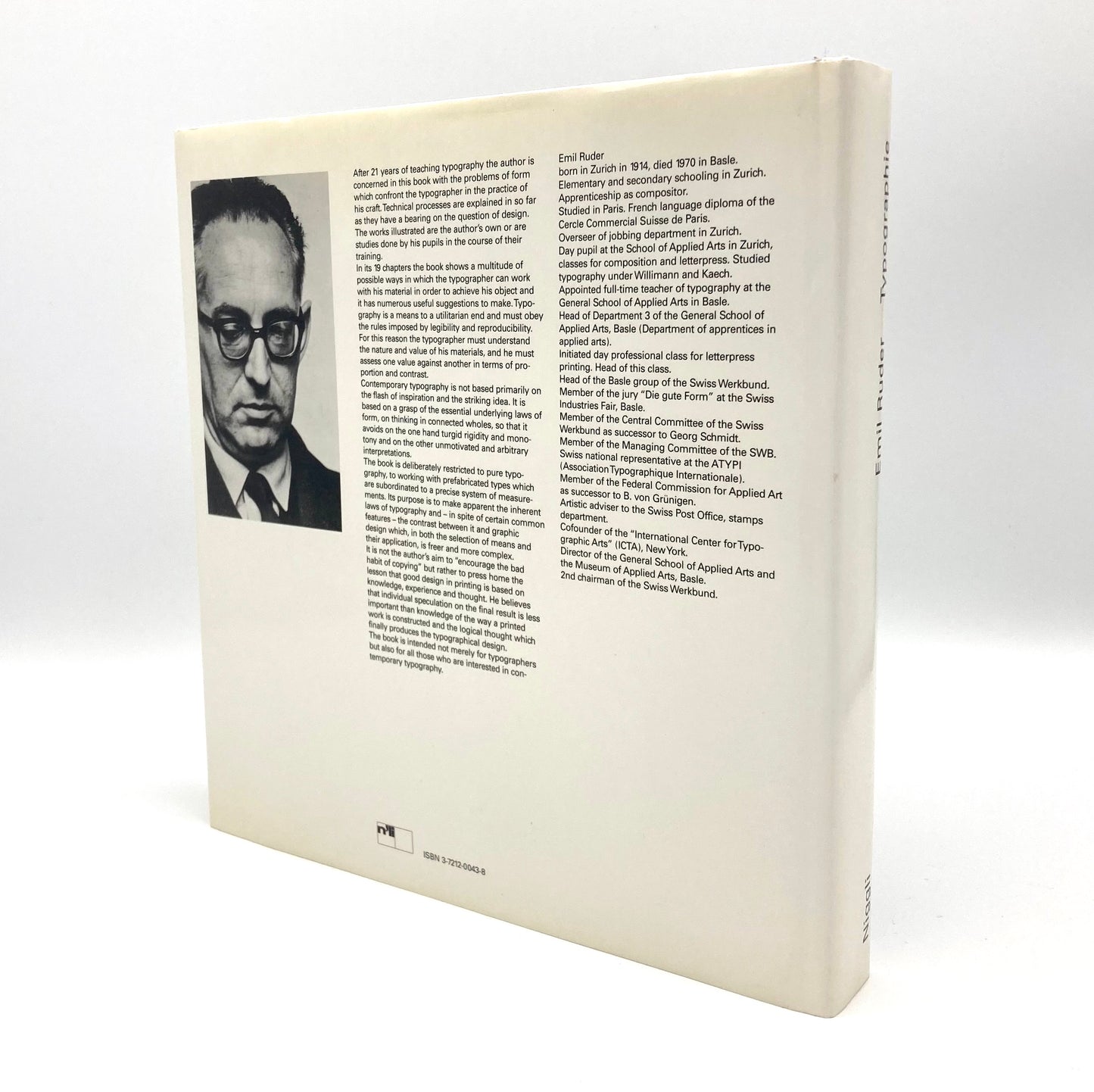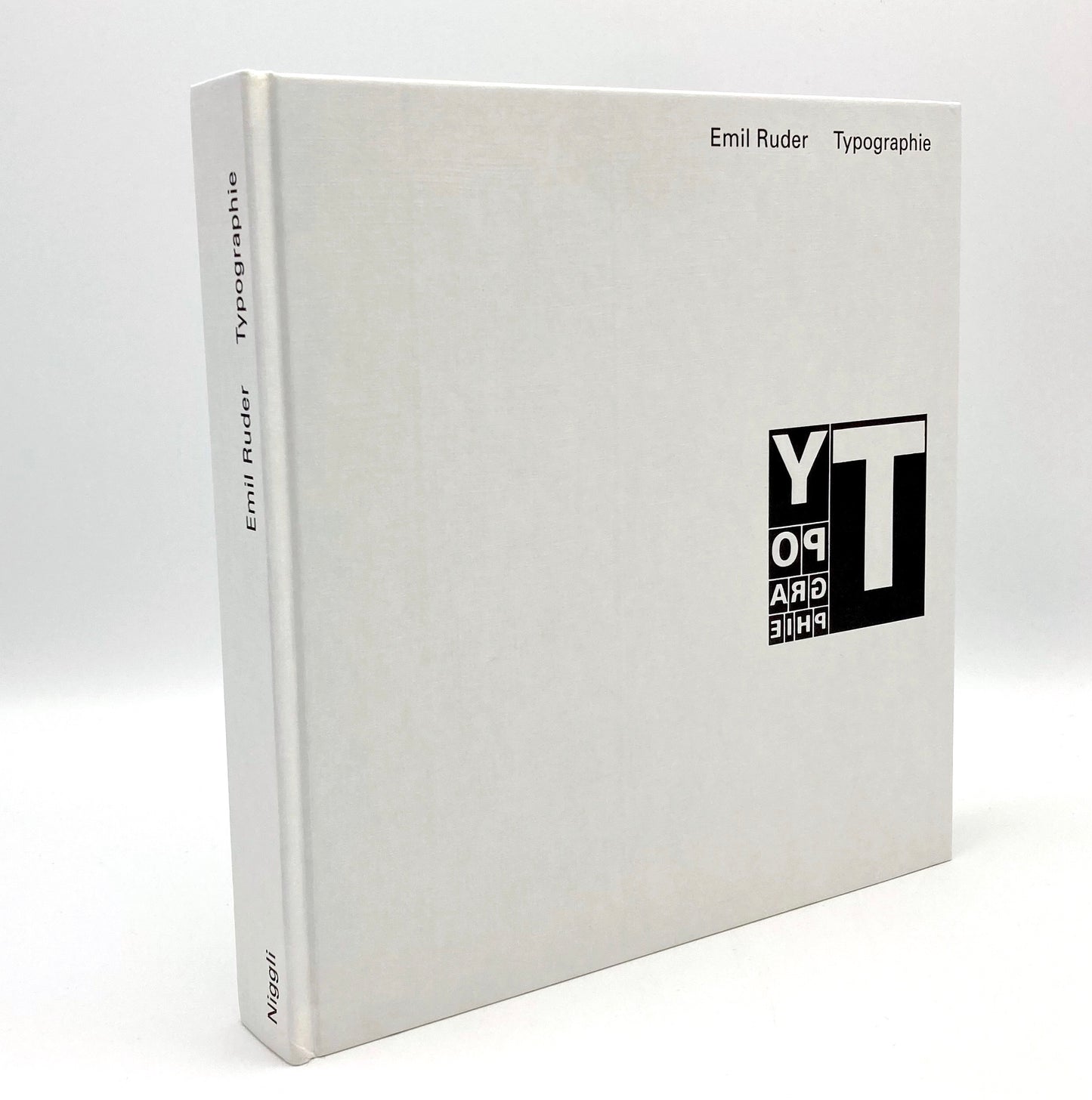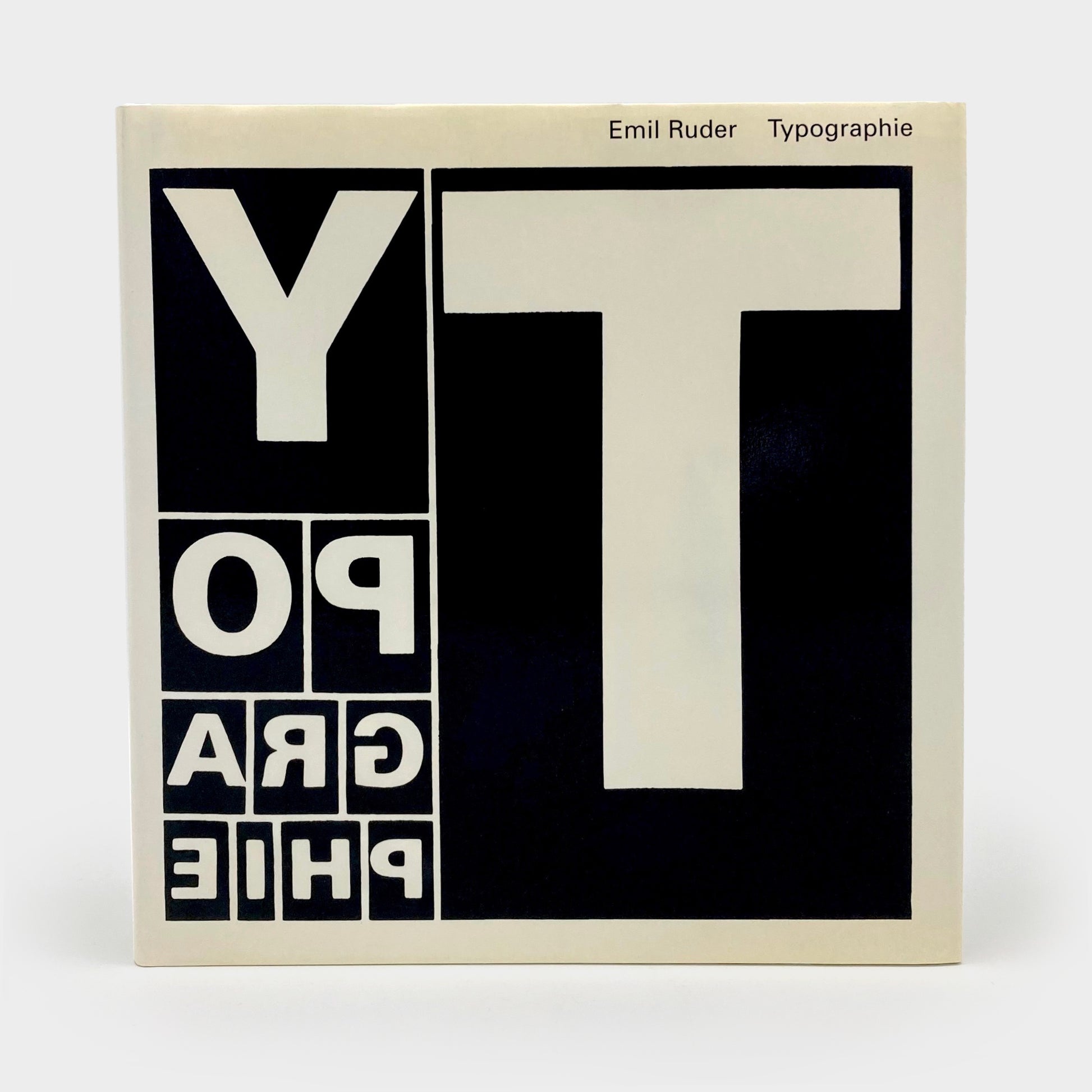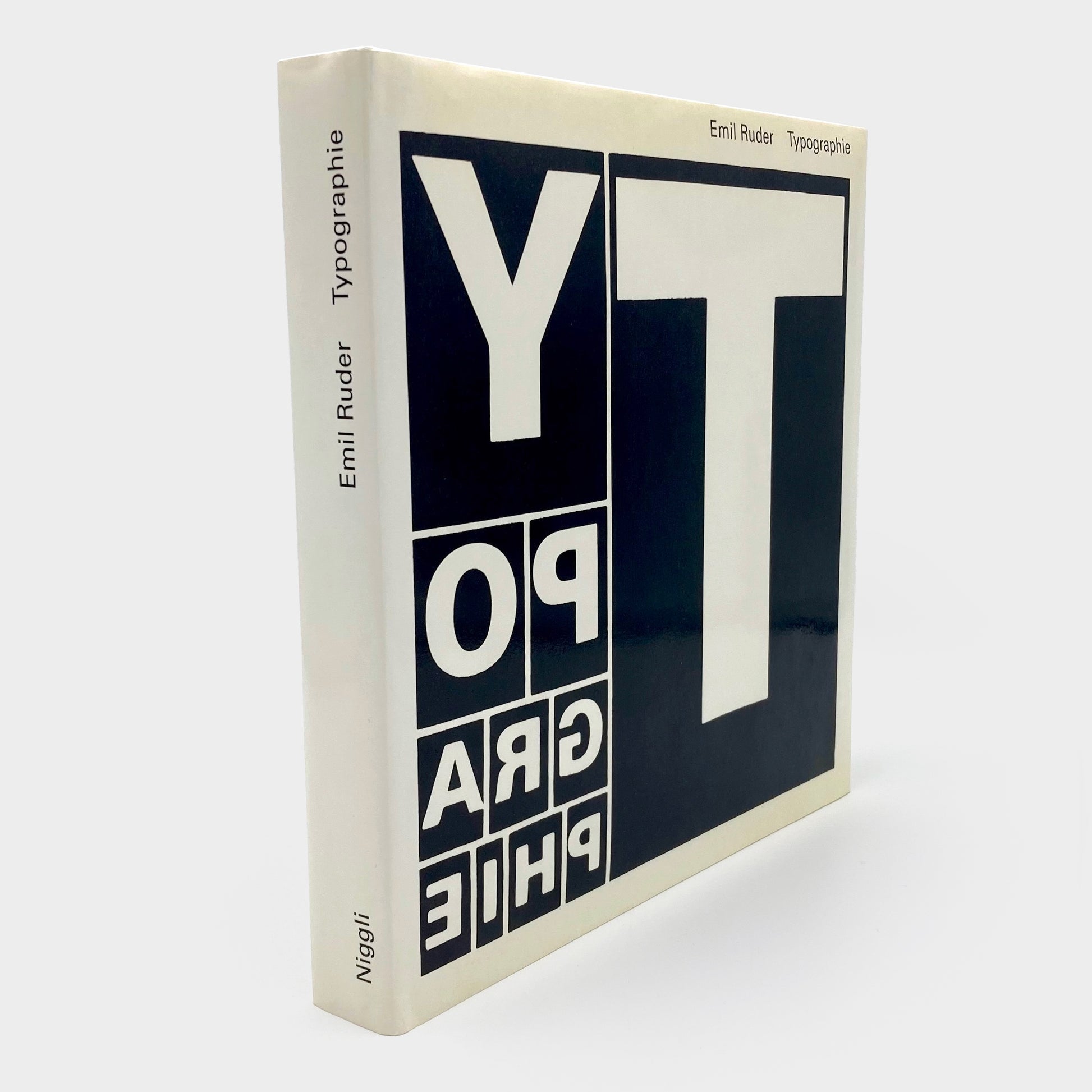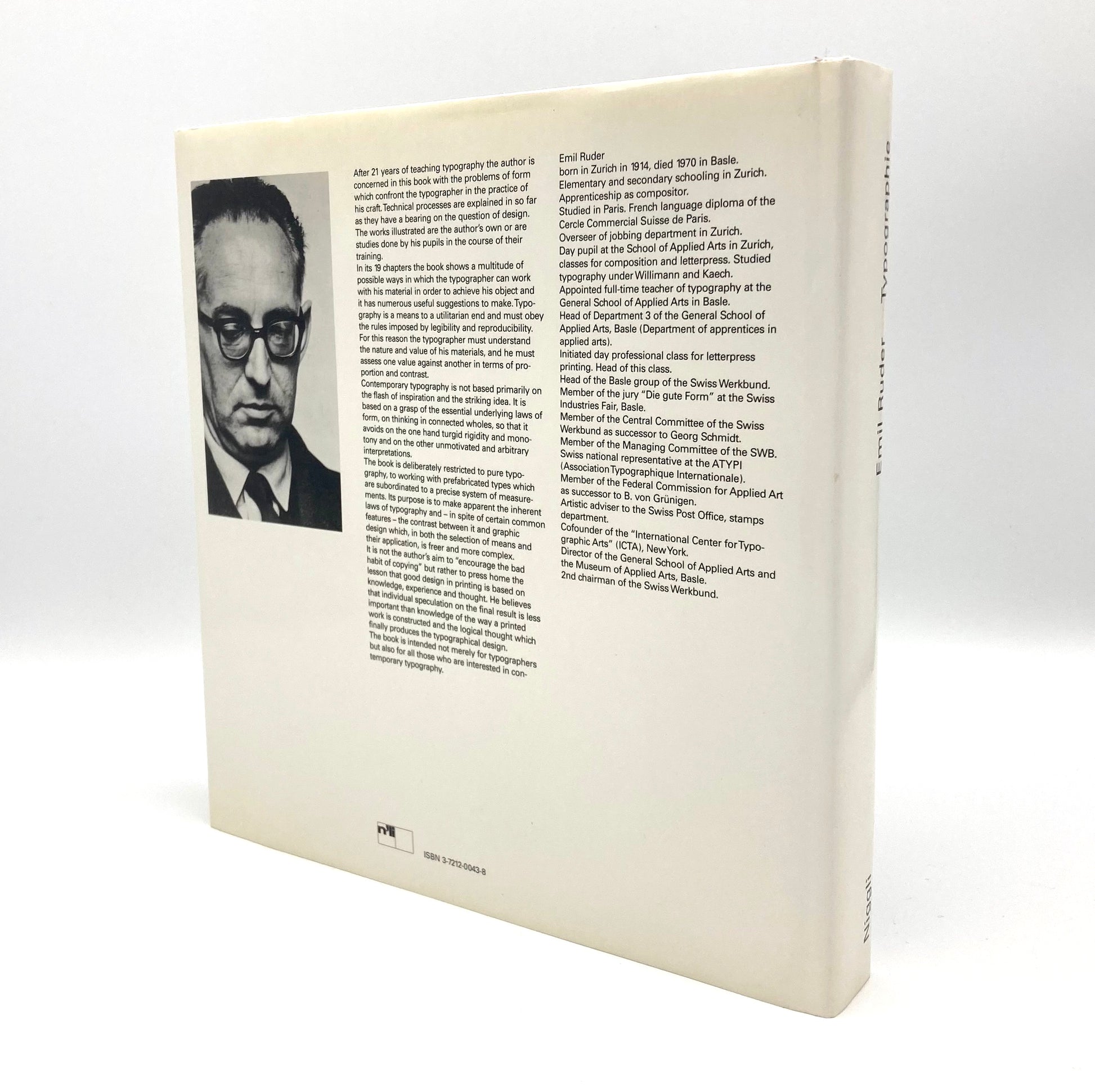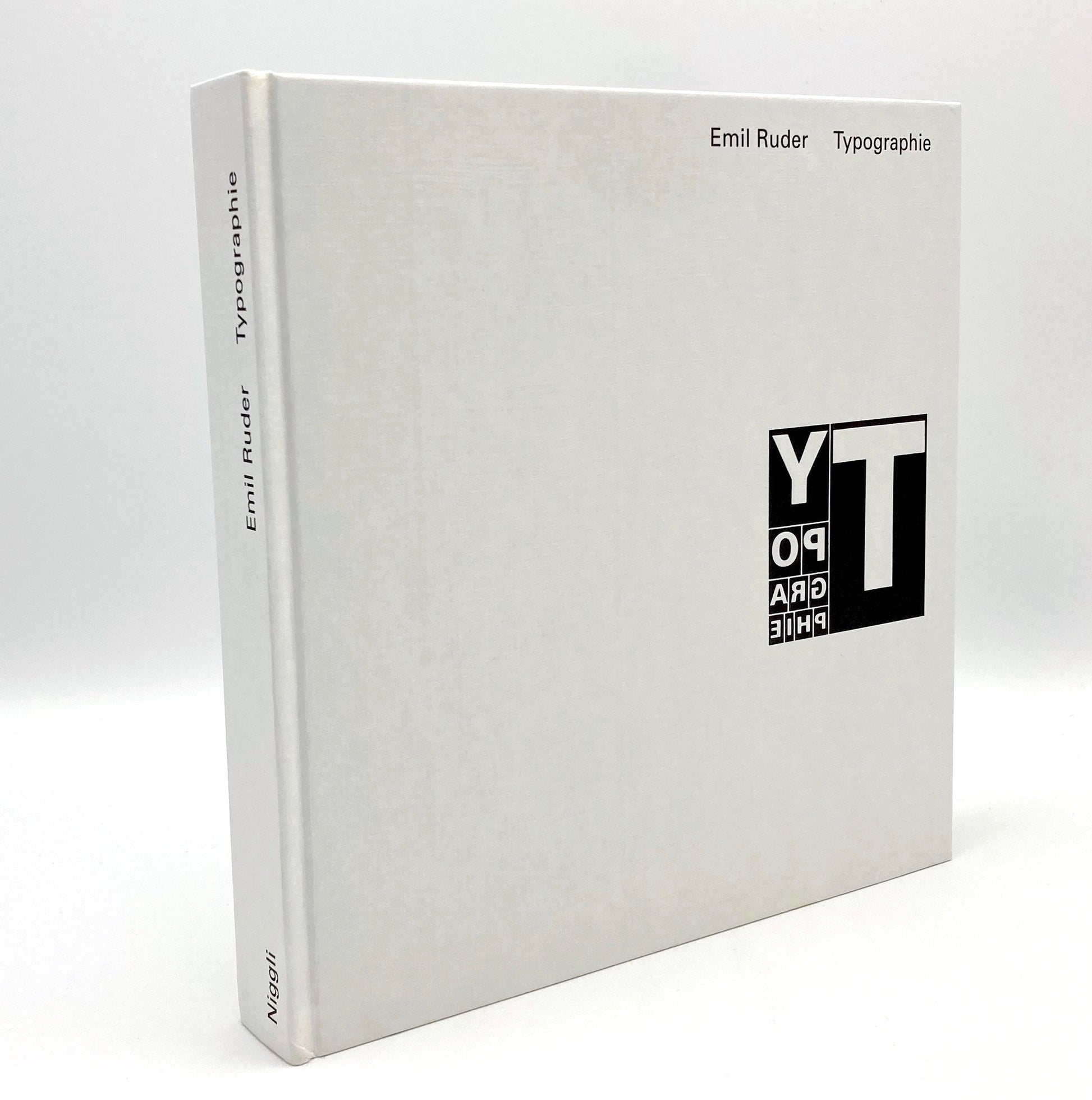
Typographie: A Manual of Design
Emil Ruder
“This book is the legacy of Emil Ruder, one of the originator of Swiss Style, famous throughout the world for the use of asymmetric layouts, use of a grid, sans-serif typefaces and flush left, ragged right text. His holistic approach is still recognized as fundamental for graphic designers and typographers all over the world. This volume represents a critical reflection on his teaching and practice and a lifetime of accumulated knowledge.”